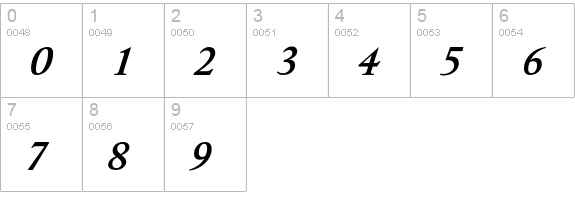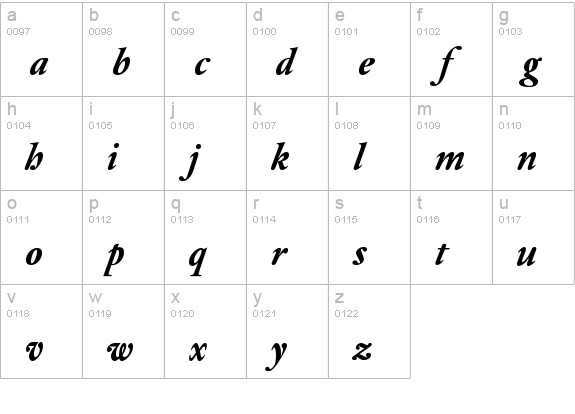
DTLElzevirT-BoldItalic is a stylish and modern font that exudes sophistication and elegance. Its bold yet italicized design adds a touch of flair to any project, making it perfect for headings, titles, and other eye-catching text. The unique curves and angles of this font give it a dynamic and contemporary feel, sure to make your designs stand out. And the best part? DTLElzevirT-BoldItalic is available for free download at FontsMarket.com! Whether you're working on a personal project or a professional assignment, this font is sure to elevate your work with its bold presence and sleek appearance. Don't miss out on the opportunity to enhance your designs with this stunning font that is both versatile and visually appealing. Download DTLElzevirT-BoldItalic today and see the difference it can make in your projects!